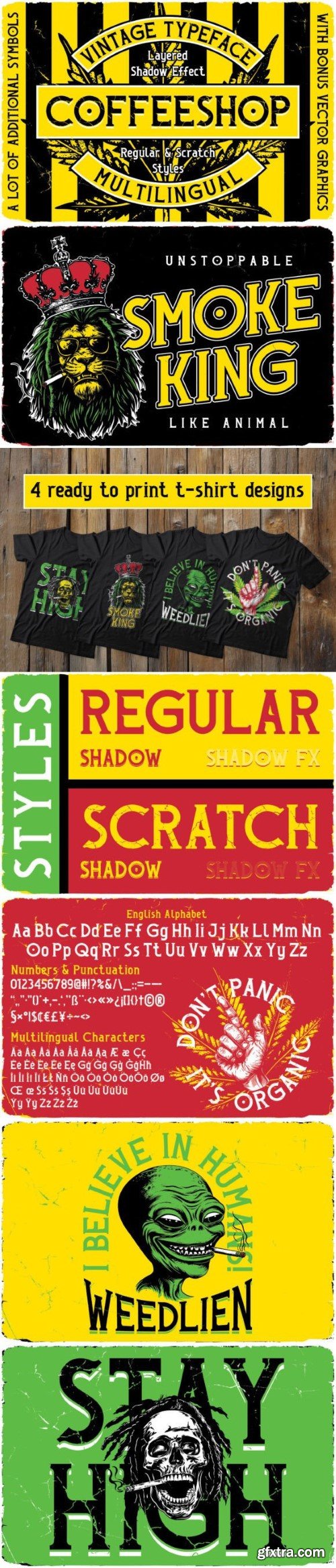
咖啡馆字体
Coffeeshop is a nostalgic vintage label font that brings a rustic touch to your designs. With a classic appeal, this font captures the essence of cozy coffee shops and old-world charm. Perfect for creating retro labels, signage, or any project that craves a hint of timeless character. Coffeeshop’s simplicity and vintage flair make it an excellent choice for adding a touch of warmth and authenticity to your creative endeavors.